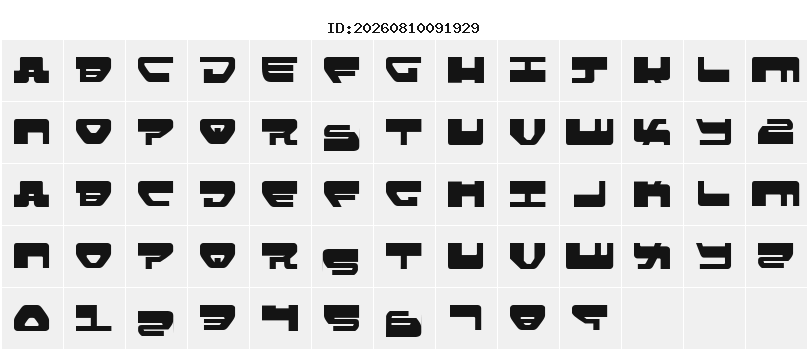
• Font Name: PCLifeLoveladies
• Full Font Name: PCLifeLoveladies
• PostScript Name: PCLifeLoveladies
About PCLifeLoveladies.ttf
PCLifeLoveladies.ttf is a modern, elegant sans-serif font designed for ultimate readability and visual harmony. Perfect for branding, headlines, web design, and print materials.